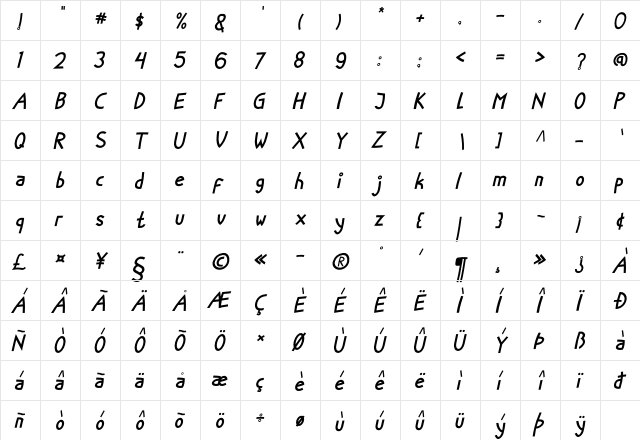
Little Fish Italic Regular
Design Context for Little Fish Italic Typeface
Little Fish Italic takes a measured approach to typography — its balanced proportions and neutral character make it a reliable workhorse for both digital and print work. Its italic angle brings a sense of urgency and motion to the letterforms.
Pro Tip: Try Little Fish Italic for annotation and caption copy alongside an upright companion — the contrast in angle creates a dynamic but ordered typographic system.